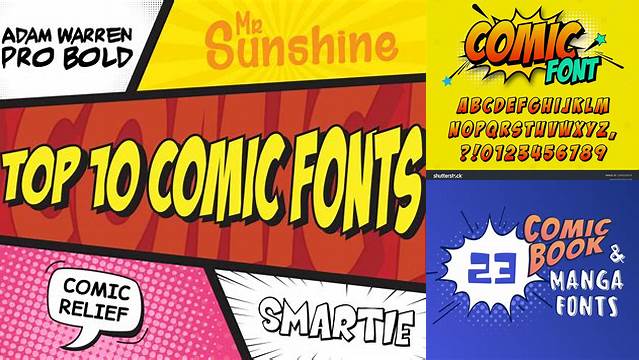
Get Awesome Comic Book Fonts (Free & Commercial Use!)
Hey guys! Are you looking to add some POW! and BAM! to your designs? Well, you've come to the right place! We're diving deep into the awesome world of comic book fonts that are free for commercial use. Whether you're a budding graphic designer, a small business owner, or just a creative soul looking to jazz up your projects, finding the right font can make all the difference. And the best part? You don't have to break the bank! This article will guide you through some fantastic options, ensuring you can bring your comic-inspired visions to life without any legal worries. So, let's get started and explore the world of free comic book fonts!
H2: Top Free Comic Book Fonts for Your Projects
Now, let's dive into some fantastic font options! Here are a few of my personal favorites, along with what makes them great:
H3: Action Comics – A Bold and Iconic Choice
Action Comics, guys, is like the Superman of fonts – it's a classic! It's bold, strong, and instantly recognizable. This font is perfect for headlines, logos, and any project where you need to make a statement. It evokes a sense of adventure and heroism that’s perfect for the comic book vibe. Action Comics is often associated with comic book covers, and using it will give your designs an immediate, high-impact feel. This font typically includes a range of characters, from the standard alphabet to numbers and common symbols, making it highly versatile. You can easily use it in various applications, such as posters, websites, and social media graphics. The strong visual appeal ensures your message is delivered with authority and memorability. It's often a go-to choice for comic book-themed projects that require a commanding presence. You might find it available on several font websites, and it usually comes with a straightforward commercial license, which allows you to use it in various commercial projects without restrictions. Always ensure you review the license terms, but generally, Action Comics is user-friendly and perfect for both personal and commercial projects, making it a solid choice for creators of all levels.
H3: Komika Axis – Playful and Versatile
If you're looking for something a bit more playful, Komika Axis is an excellent choice. It has a rounded, friendly feel that's perfect for speech bubbles and body text. This font is versatile, and it can be used in a wide range of projects, from children's books to webcomics. Komika Axis provides a good balance of readability and personality. It offers a slightly more casual feel than some of the bolder, more structured fonts, which can be great for projects that target younger audiences or those seeking a friendlier tone. The design elements of Komika Axis contribute to its approachable appearance, making it a perfect fit for a variety of design purposes. It is generally available in a variety of weights and styles, so you can choose a style that suits your project. Komika Axis is a valuable asset in your font collection. It works great in both print and digital media. The commercial license of Komika Axis makes it ideal for commercial projects. It’s great for logos, website graphics, or even printed merchandise.
H3: Blambot's Fonts – Professional Quality
Blambot is like the go-to guy for comic book lettering. He's got a fantastic collection of fonts that are specifically designed for comic book use. The fonts are high-quality and professional, which means your work will look amazing. Blambot's fonts cover a wide range of styles, from classic to modern, so you're sure to find something that fits your needs. These fonts are often specifically created with the demands of comic book design in mind. That means they are optimized for readability and visual appeal, making them a good choice for professionals and hobbyists alike. The licensing terms are generally clear and user-friendly, often allowing for both personal and commercial use with attribution. Blambot fonts are typically designed by artists who understand the nuances of comic book design, so you can be confident that you're getting a quality product. If you're looking to add a polished, professional touch to your comic book projects, Blambot's fonts are a great option. They typically come with well-defined licensing agreements that allow you to use them in both personal and commercial projects. They're often the choice for designers and comic book artists who want their work to stand out. These fonts reflect a deep understanding of comic book aesthetics and lettering. With several styles to choose from, you can add the perfect style to your projects, making your comic book lettering professional and memorable.
H2: Customizing Your Comic Book Fonts
Once you've found your perfect fonts, don't be afraid to customize them! This is where you can really make your designs unique.
H3: Adjusting Font Size and Spacing
Simple adjustments like font size and spacing can make a huge difference. Experiment with different sizes to find what works best for your layout. Adjusting the spacing between letters (kerning) and lines (leading) can also improve readability and visual appeal. Play around with these settings to find the perfect balance. Making small adjustments to font sizes and spacing can greatly enhance the impact of your comic book designs. This flexibility enables you to match the style and tone of your comic. By adjusting the size of your text elements, you can ensure they fit perfectly within the confines of your speech bubbles or panels, maintaining a professional appearance. Kerning and leading are two essential font adjustments that can affect readability and visual appeal. Kerning, which controls the space between individual letters, ensures even spacing, prevents awkward gaps, and enhances the overall visual harmony of your text. Leading, which is the vertical space between lines of text, significantly impacts how easy it is for your audience to read and digest the content. Adjusting these settings gives you complete control over the appearance of your font, making your designs stand out. Be sure to test the font at various sizes and in different contexts within your designs to determine what works best for each element. The goal is to create a layout that's both visually striking and accessible to the reader.
H3: Adding Effects (Outlines, Shadows, etc.)
Adding effects can really make your fonts pop! Try adding outlines, shadows, or glows to create a 3D effect or make your text stand out. Use these effects sparingly, so they don't distract from the overall design. Comic book fonts look great with effects like outlines, drop shadows, and glows. They enhance the fonts and create a three-dimensional visual style, mirroring the bold, graphic aesthetic of comic books. By adding an outline to your text, you can increase readability against complex backgrounds or within crowded panels. Shadows add depth, creating a sense of perspective and drawing the eye, while glows can make the text appear to be radiating energy or light. Applying these effects requires a keen eye for design. It is important not to overdo it. You can create text elements that complement the artwork and story of your comic. To achieve these effects, graphic design software such as Adobe Illustrator or Photoshop offers numerous options. Experiment with these features to find the perfect balance and give your text an engaging, professional look. Properly applied effects enhance the artistic value of your comic and captivate the audience.
H3: Combining Fonts for a Unique Look
Don't be afraid to mix and match fonts! Try pairing a bold headline font with a more readable body font. Combining fonts can add visual interest and create a more dynamic design. Experiment with different combinations until you find something you love. Creating a successful combination often involves balancing contrasting elements. Consider using fonts that complement each other, where one is bold and attention-grabbing, and the other is subtle and functional. This contrast can add depth and character to your design. The font pairing should also consider the intended audience and the tone of the comic. For instance, a comic book aimed at children may benefit from the use of playful or whimsical fonts, while a serious, action-packed comic may call for bold, dramatic fonts. Experimentation is key. Try different combinations of fonts to achieve the desired look and feel for your comic. By experimenting with various combinations, you can create a unique and eye-catching design that reflects the comic's story and characters. Ultimately, a creative combination of fonts enriches the visual appeal of your comic, making it more memorable and engaging.
H2: Tools and Software for Using Comic Book Fonts
To bring your font dreams to life, you'll need some tools!
H3: Graphic Design Software: The Essentials
You'll need graphic design software to work with your fonts. Popular choices include Adobe Photoshop, Adobe Illustrator, and Canva. Photoshop is great for raster-based designs (think images), while Illustrator is perfect for vector graphics (logos and scalable designs). Canva is an easier-to-use option, especially for beginners. These tools let you customize your text, add effects, and create stunning designs. Adobe Photoshop and Illustrator are the industry standards for graphic design. They offer a wide range of features and capabilities, making them ideal for professionals and serious hobbyists. Canva, on the other hand, is a web-based design tool that offers a user-friendly interface and a vast library of templates. It is an excellent choice for beginners. With these tools, you can create logos, illustrations, and layouts, among other things. You can also adjust font sizes, colors, and spacing. Each software has different strengths and weaknesses, so choose the one that fits your needs. They offer different advantages in terms of features, ease of use, and cost, so finding the right one is important for ensuring a smooth and productive creative process. When selecting a graphic design software, consider your specific needs, skill level, and budget. Whether you choose Adobe Photoshop, Illustrator, or Canva, using these tools will ensure your projects are ready for print and web.
H3: Font Management Software: Staying Organized
Font management software is your best friend! It helps you organize your fonts, preview them, and activate or deactivate them as needed. This prevents font clutter and ensures your system runs smoothly. Font management software is like a library for your fonts. It offers features such as font organization, previewing, and the ability to group fonts. This streamlines the creative process, as you can easily find the fonts you need and prevent any conflicts. This software also provides a simple interface for previewing fonts, so you can see how they look before using them. It also helps avoid font conflicts, which occur when two or more fonts have the same name or similar appearance, leading to confusion. The benefits of using font management software are significant. It improves workflow efficiency and ensures font management is as easy as possible. If you're serious about design, investing in font management software will be worth it. Font management software allows you to categorize, tag, and search your fonts. This is a powerful tool that enhances organization and helps you find the perfect font for each project, streamlining your design process. You can use font management software to streamline your workflow, ensuring your creativity is never hampered by organizational issues. Font management software enables you to preview fonts, organize them, and activate or deactivate fonts as needed. This not only improves your workflow efficiency but also ensures your designs look their best. Consider the benefits of font management software, and you will improve your design projects.
H3: Online Design Tools: Quick and Easy Options
If you need something quick and easy, explore online design tools. Canva is a fantastic option! You can upload your fonts and create designs in minutes. There are other online tools available too, which can be super handy for quick projects or social media graphics. Online design tools are great for creating visuals without downloading heavy software or needing extensive design experience. These tools are perfect for social media graphics, presentations, and simple print materials. Canva is the most popular option, but there are other online design tools that also support custom fonts and offer a wide range of features and templates. These tools provide a simple way to design content, even without professional design knowledge. The intuitive user interface, combined with pre-designed templates, makes it easy to create eye-catching graphics quickly. They also have features like drag-and-drop design, a large stock photo library, and collaboration tools. They offer a quick and easy solution. Online design tools empower anyone to create visuals for a wide range of purposes. Whether you need a quick social media graphic, a presentation, or a simple print material, these tools will make it easy. The online nature of these tools offers accessibility, making them ideal for designers of all skill levels and those who want to streamline their creative process.
H2: Common Mistakes to Avoid When Using Comic Book Fonts
Let's talk about some common mistakes, so you don't make them!
H3: Overusing Fonts: Less is More
Don't go overboard with your fonts! Using too many different fonts in one design can be distracting and make your work look cluttered. Stick to a maximum of two or three fonts. Choose fonts that complement each other and create a cohesive design. When creating a comic book design, resist the temptation to use too many fonts. Sticking to a limited number of fonts ensures a more professional and visually appealing look. Overusing fonts can overwhelm the reader and make the design appear unprofessional. Limiting yourself to a maximum of two or three fonts, including headlines and body text, creates a harmonious balance, resulting in a cohesive design. Complementary fonts support visual harmony. This approach keeps the focus on the story and the artwork. Experiment with various combinations of fonts, choosing styles and weights that match the story's tone and style. The most effective designs avoid unnecessary complexity by being concise and easy to understand. Avoiding overusing fonts allows your comic book font to effectively deliver the story. A well-chosen font combination, applied consistently throughout the comic book, ensures visual consistency and increases reader engagement. Keeping it simple results in a professional look, which is essential for drawing the audience into the comic book world.
H3: Poor Readability: Make it Readable!
Make sure your text is easy to read. Choose fonts that are clear and legible, especially for body text. Consider the font size, spacing, and color contrast. Poor readability can ruin even the most awesome designs. Prioritize font readability! The ability to easily read the text is crucial for all graphic design projects, especially comics. Choose fonts that are not only visually appealing but also legible. This can involve selecting a font with a clear, well-defined structure and a high degree of contrast. Reading will become very difficult if the text is small or the colors have little contrast. To improve readability, carefully consider font size and spacing. Avoid using overly ornate fonts that are challenging to decipher at smaller sizes. Increase spacing between lines and letters (leading and kerning) to improve readability. Test your designs across different devices and backgrounds to make sure the text remains clear. Prioritizing readability keeps readers engaged, ensuring the story is easily accessible and enjoyable. Proper use of font size, color contrast, and spacing allows readers to easily understand the comic book’s story and improves the visual appeal. Therefore, readability is essential.
H3: Ignoring the License Agreement: Stay Legal!
Always read the license agreement! Even if a font is free, there might be restrictions on how you can use it. Ignoring the license can lead to legal trouble. Make sure you understand the terms before using a font. It's a must-do for all font users, particularly when using free fonts. Even though the font is free, the license dictates how it can be used. The license specifies the terms of use and any restrictions. If you ignore the license terms, you could risk facing legal issues. Therefore, always familiarize yourself with the license before using any font. The license will tell you whether you can use the font for commercial projects, whether you need to credit the font creator, and if there are any restrictions on modifications or distribution. It's important to respect the creator's rights and follow their guidelines. Violating the license terms can lead to copyright infringement. So, make sure you understand the license. This knowledge ensures your designs are both creative and legal. Respecting licensing agreements shows professionalism and protects you from potential legal problems.
H2: Where to Find Inspiration for Comic Book Fonts
Need a little inspiration? Check these places out!
H3: Comic Books: Study the Masters
Look at actual comic books! Pay attention to the fonts they use for dialogue, sound effects, and headlines. Analyze how the fonts are used and how they contribute to the overall design. Comic books themselves are a great source of inspiration. Examine how established comic books use fonts to get a sense of what works best. Pay close attention to the font choices made by the comic book artists you admire. See how they integrate fonts into the layout, how they incorporate them into the story, and how they contribute to the overall visual appeal. Study the font styles used for different types of text, such as dialogue, sound effects, and captions. Note how the font choices complement the artwork. Pay attention to the design choices, such as font size, kerning, and spacing, to achieve a cohesive and professional appearance. By studying comic books, you can gain valuable insights and inspiration. By observing how professional designers use comic book fonts, you will improve your skills. Look at how they have successfully integrated fonts to create captivating designs, and consider those elements in your own projects to create a distinct, professional look.
H3: Graphic Design Websites and Blogs
Graphic design websites and blogs are a great source of inspiration. Look for articles and tutorials on comic book design and font pairing. Follow designers and artists whose work you admire. Graphic design websites and blogs provide a wealth of inspiration and resources. They offer insights into the latest design trends and techniques, which is very useful for those who need to stay updated. Many websites and blogs feature tutorials and case studies about comic book design, allowing you to deepen your knowledge and learn from experienced designers. Follow and examine the work of designers and artists whose style you admire. Analyze their font choices, layout techniques, and overall design approaches. Consider joining online communities to explore what other designers and artists create. These resources provide insights into trends and allow you to stay informed. These sites will also help you keep up with the latest design trends. Use these sites to stay updated, learn new techniques, and discover new fonts. You can learn more about design trends and improve your skills by using graphic design websites and blogs.
H3: Social Media: Follow the Trends
Social media platforms can be a fantastic source of inspiration. Follow designers and artists on Instagram, Pinterest, and other platforms. Look for trending designs and see how fonts are being used in creative ways. Social media is the place to be for discovering new styles. Platforms like Instagram and Pinterest provide access to design trends and emerging artists. Follow your favorite designers to get regular inspiration and to see how fonts are being applied in unique and innovative ways. You can find a broad audience of creative designs and find the comic book fonts of your dreams. Many designers showcase their work on social media. You will discover a variety of designs on these platforms. By exploring these platforms, you can enhance your creativity. The visual-centric nature of platforms like Instagram and Pinterest allows you to explore font combinations and layouts visually. You can get valuable ideas from these trends and incorporate them into your own designs. By staying informed on social media, you can expand your skills.
H2: Conclusion: Unleash Your Inner Superhero with Free Comic Book Fonts!
So there you have it, guys! A treasure trove of free comic book fonts to get you started on your creative journey. Remember to always check the license agreements, experiment with different fonts and effects, and most importantly, have fun! Go forth and create some amazing designs!
H3: Recap of Key Takeaways
Let's recap the main points, for those who skimmed (no judgment!). We talked about understanding commercial licenses, the best places to find free fonts, top font choices, customization tips, essential tools, common mistakes, and sources of inspiration. The key is to always prioritize readability and legal compliance. Choose fonts that match your project's tone and style, experiment with customizations, and use the right tools. By focusing on these points, you'll be well on your way to designing awesome comic book projects. Remember, the most important thing is to have fun and let your creativity shine. Remember to always double-check the license, and be sure to give credit where it’s due! Now you have the knowledge and the tools to create amazing comic-inspired projects. Keep these key points in mind as you start your design journey. You can create visually appealing and legally compliant designs.
H3: Encouragement to Start Designing
Don't be afraid to jump in and start designing! Download some fonts, open your favorite design software, and start playing around. The best way to learn is by doing. Experiment with different combinations, add effects, and create something unique. The more you practice, the better you'll become. Don’t be afraid to experiment and make mistakes. Each project is a learning opportunity. Be creative and let your ideas come to life. Don’t be afraid to try new things. There is a whole world of possibilities! The most important thing is to have fun and enjoy the process. The most important part is to find joy in the creative process. Your passion and experimentation will ultimately translate to beautiful designs. Let your imagination run wild, and enjoy every stage of the creation process. You will grow your skills and knowledge as you move through the process. Design is an exciting journey, and it's meant to be enjoyed. Unleash your inner artist and begin designing. Embrace the excitement and creativity of design. By focusing on creativity and fun, you'll find your unique voice and design style. So, don’t hesitate to unleash your creativity and begin creating your ideal designs.
H3: Resources for Further Learning
Want to dive even deeper? Check out these resources!
- Font Squirrel: Great for finding free commercial fonts.
- DaFont: Another awesome resource for free fonts.
- Google Fonts: A huge library of free fonts for all sorts of projects.
- Blambot's Website: For high-quality comic book fonts and lettering guidance.
- YouTube Tutorials: Tons of tutorials on font pairing, design software, and more.
- Graphic Design Blogs: Stay up-to-date with trends and find inspiration.
- Online Design Communities: Connect with other designers for feedback and collaboration.
These resources provide comprehensive guidance. By exploring these resources, you can improve your creative skills. Embrace these resources to continue your education and improve your design skills. These resources provide insights and tips for refining your designs. You will learn more from tutorials, articles, and design communities. Learning more about graphic design will help you. These resources equip you with the tools and knowledge necessary for effective design. You will improve your skills if you learn how to incorporate these tools. This is a great approach for enhancing your expertise in the graphic design field. Keep expanding your skills, and continue learning and being inspired by the design community. Stay informed and make sure your skills are sharp and cutting-edge. Enhance your skills, explore new techniques, and improve your creativity. By immersing yourself in these resources, you will become a better designer. Embrace these resources to enhance your skills and stay informed.